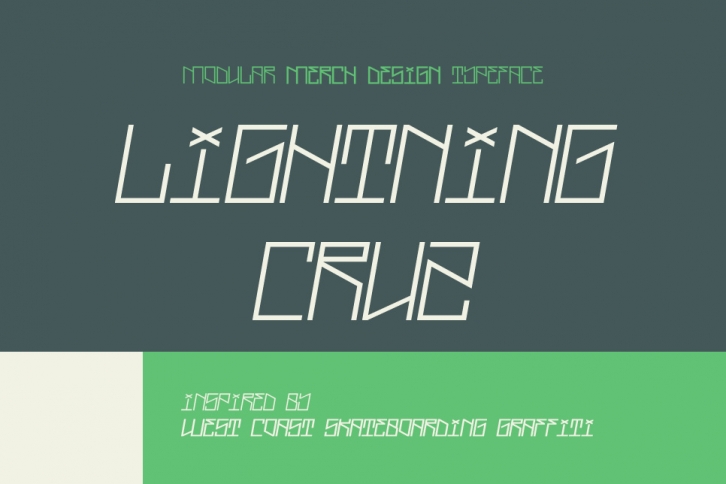
Lightning Cruz is a modular geometric font that blends the form of fonts like Phoenixians with west coast graffiti details. Lightning Cruz looks amazing in oblique.